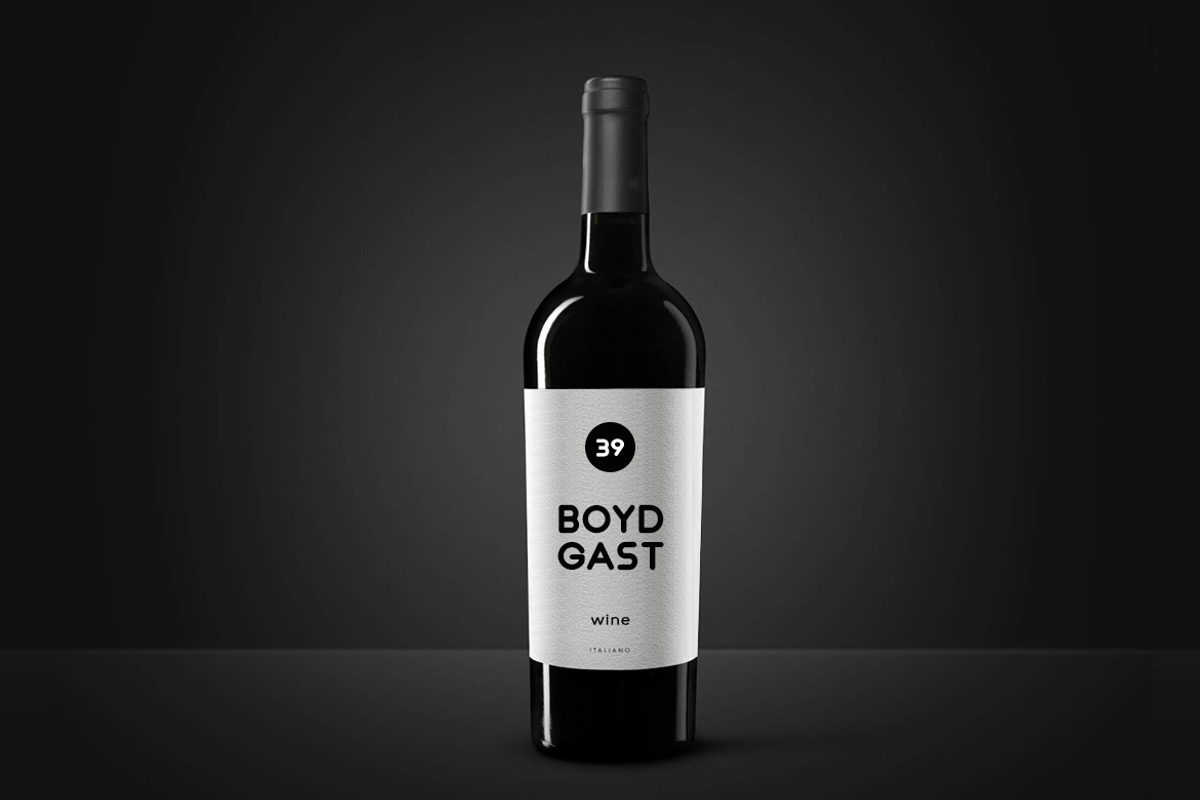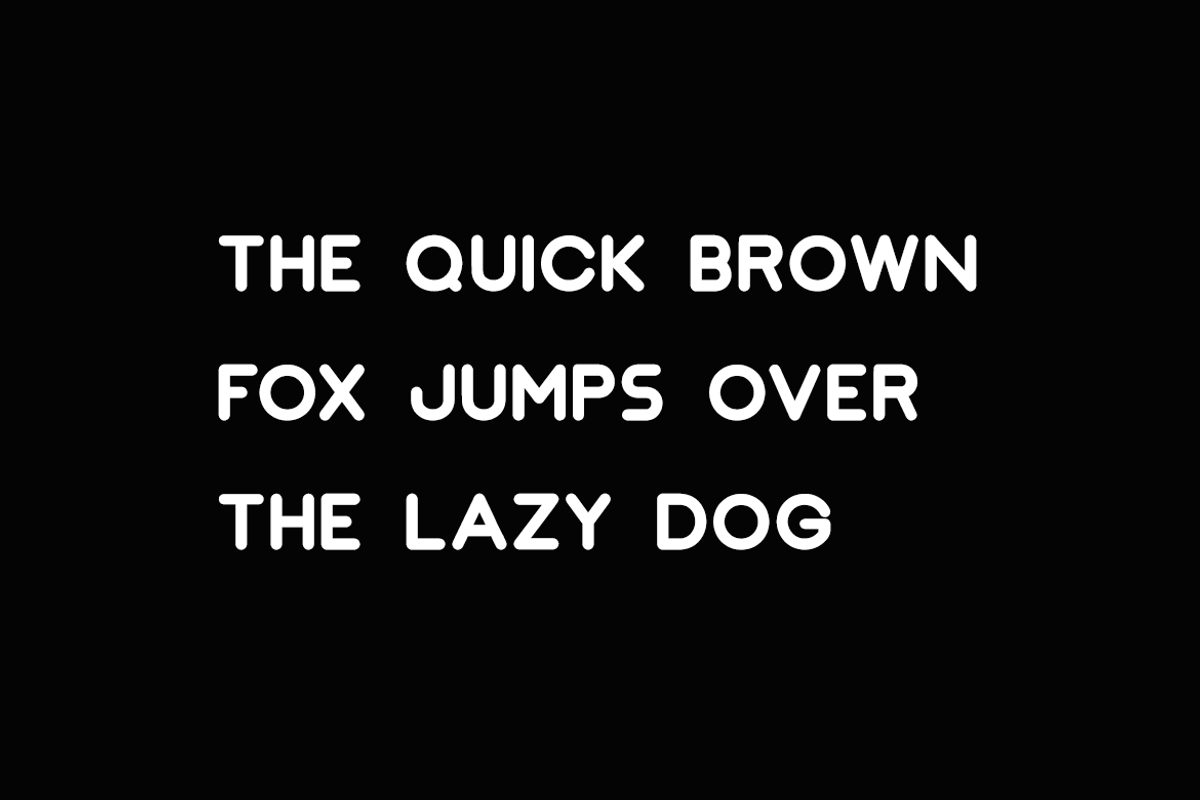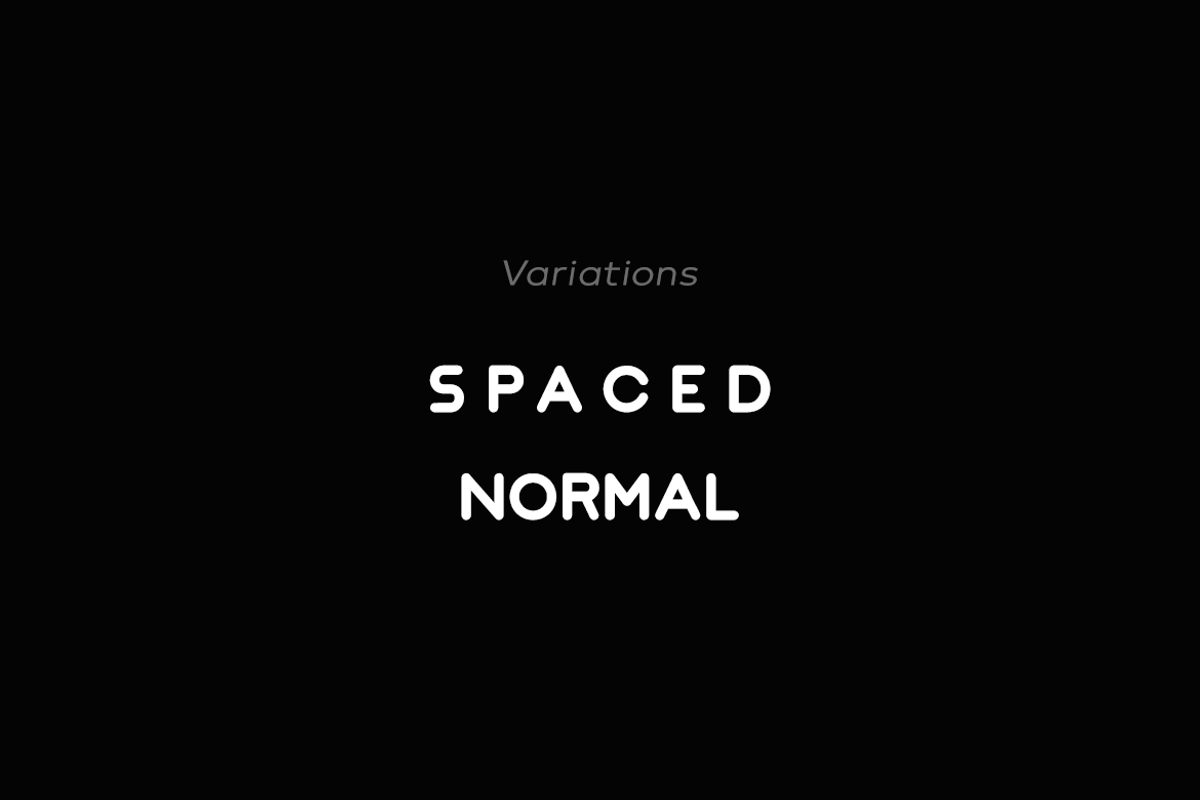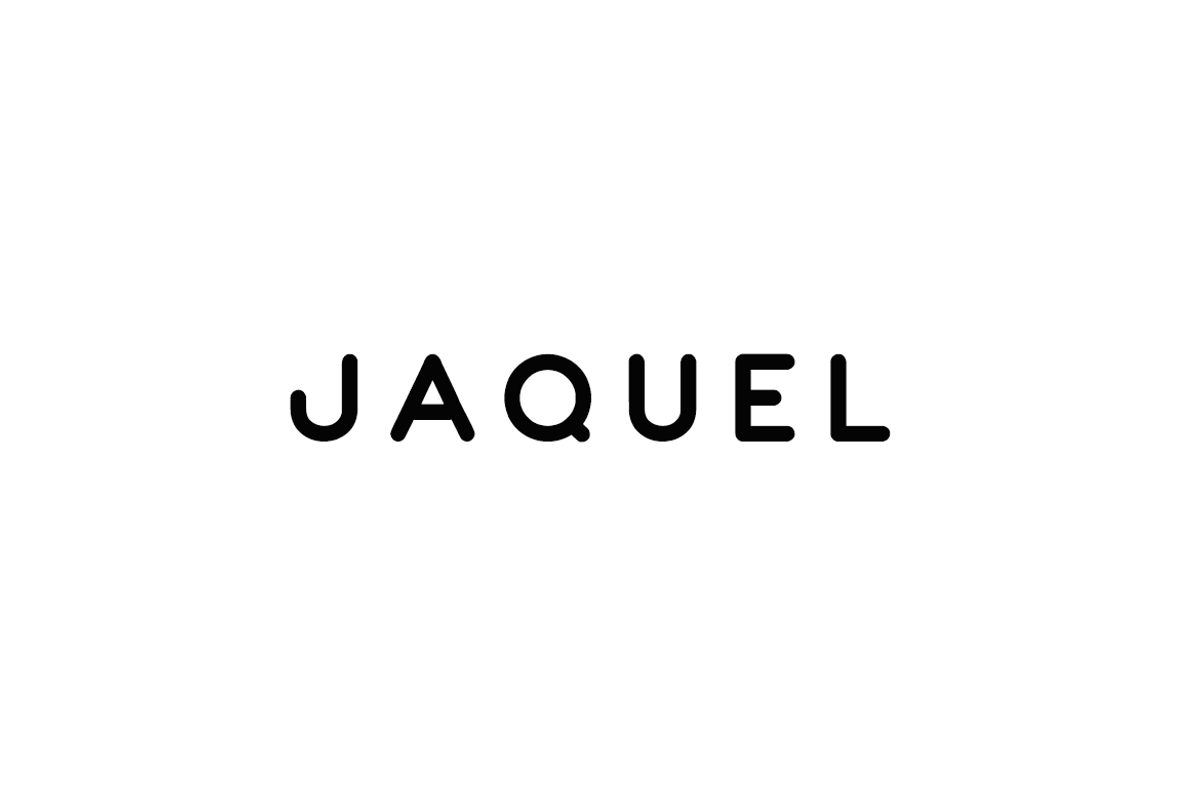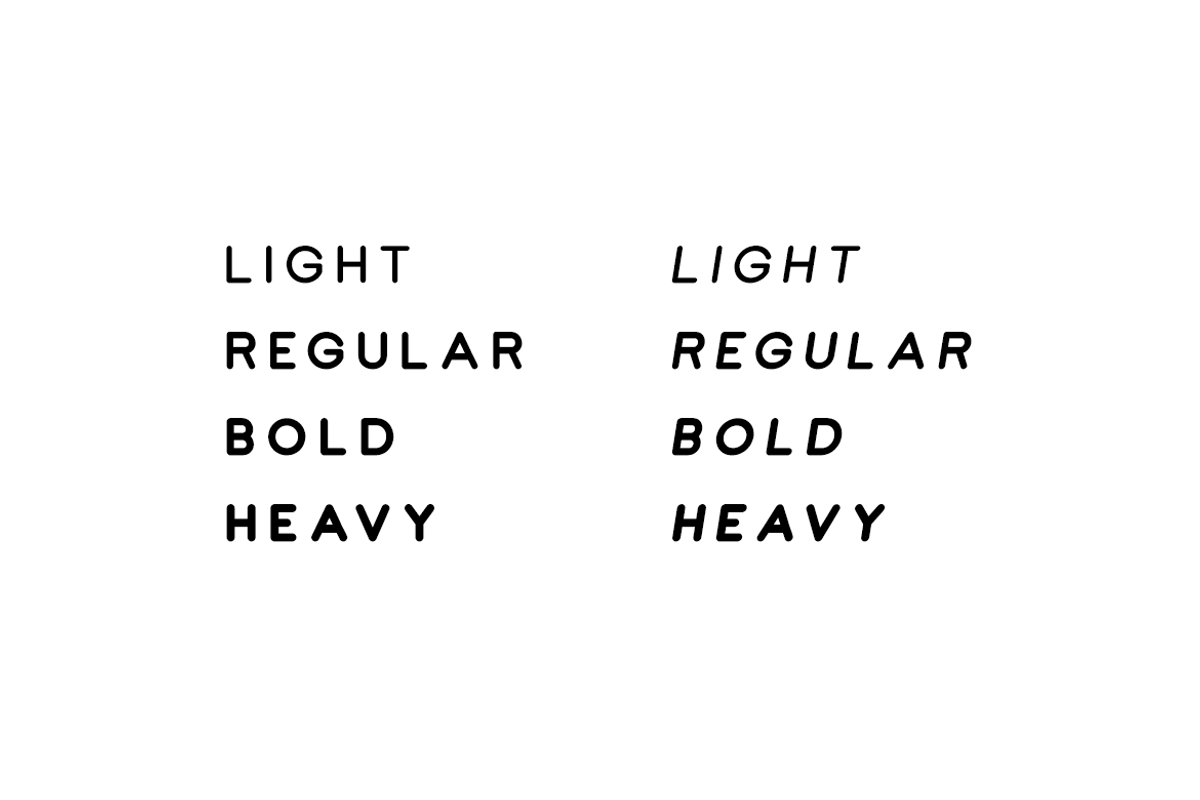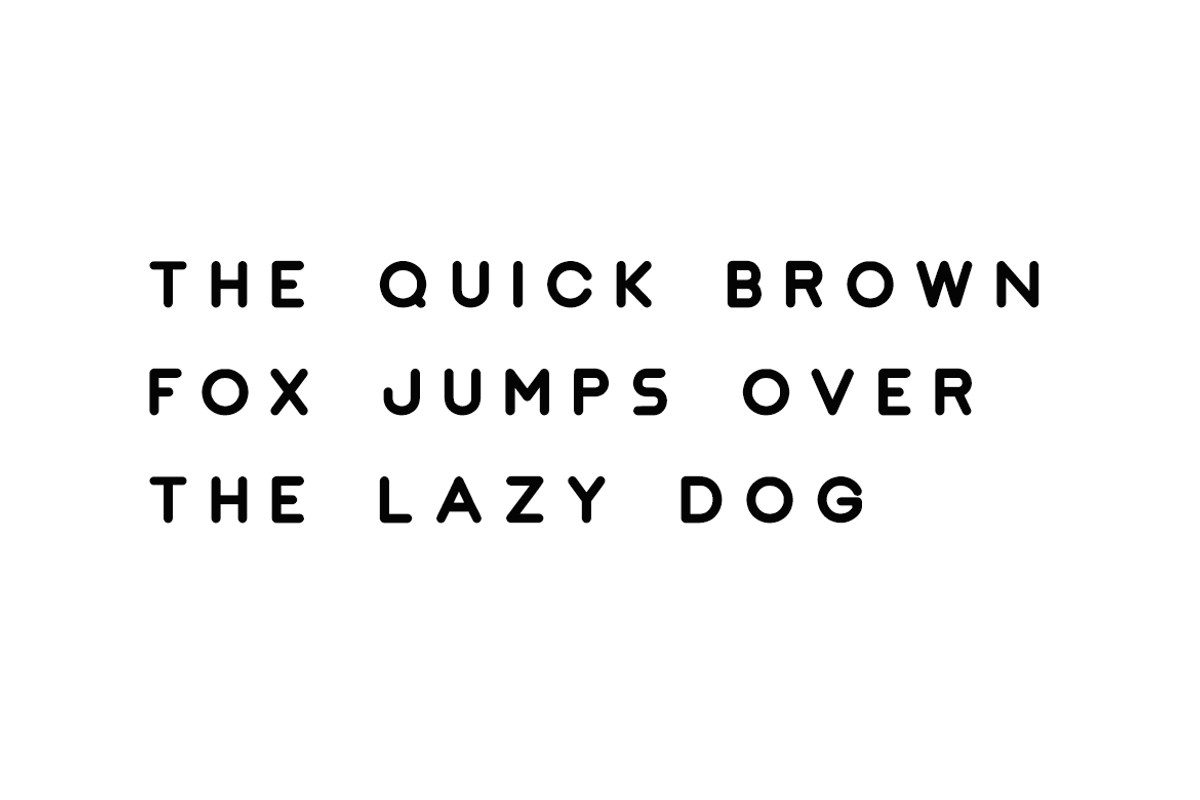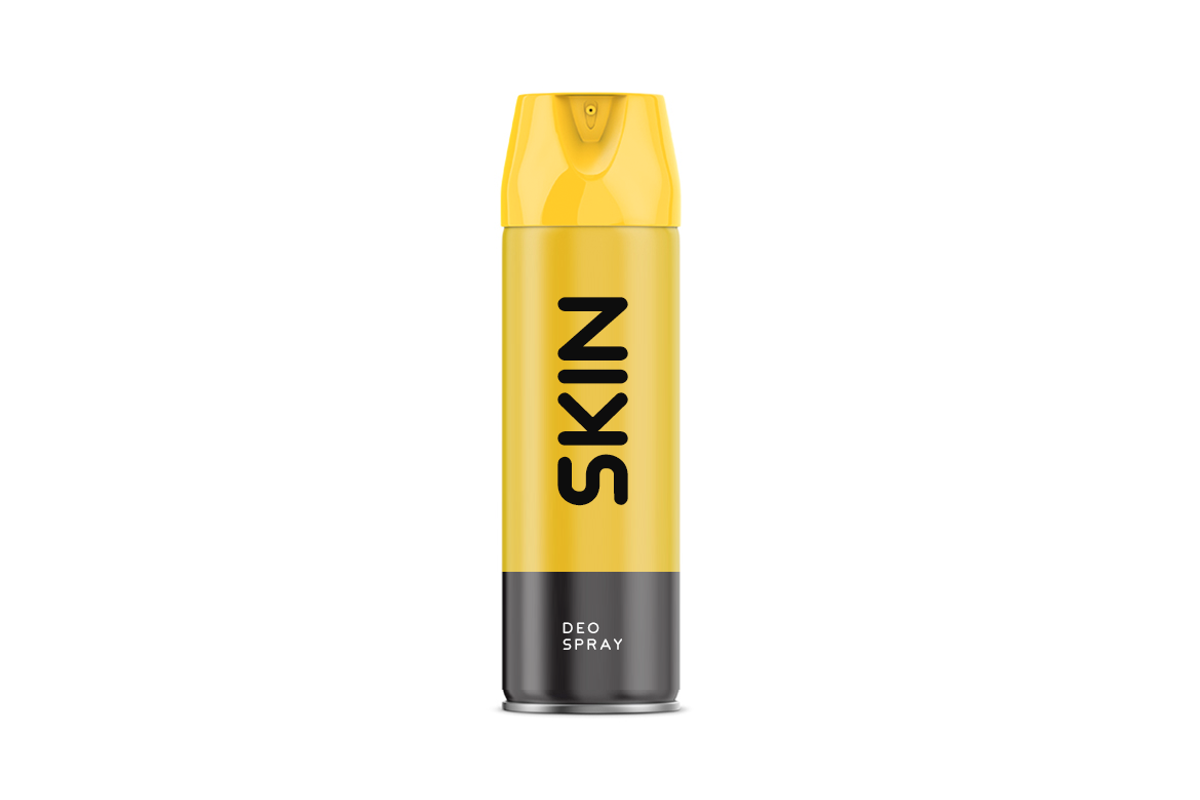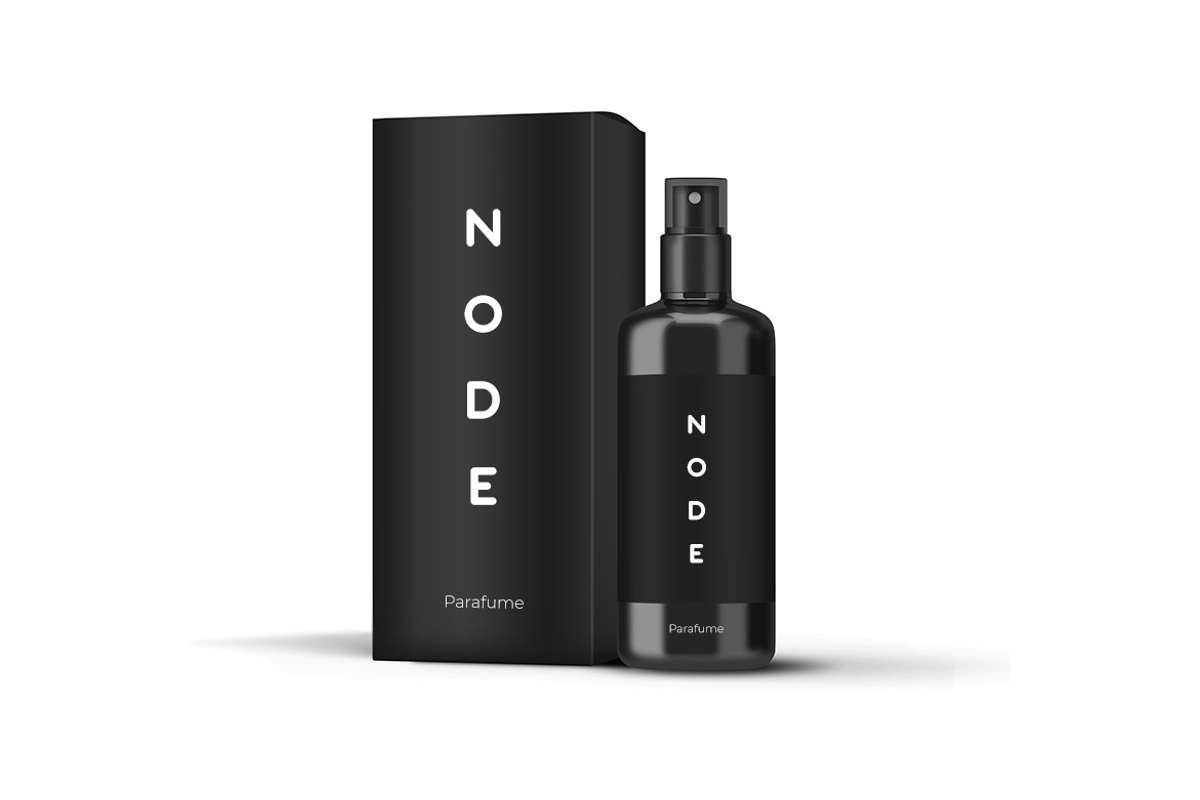
JAQUEL - Minimal Display Typeface
What's more loving than a clean typeface with an endless charm of it's own uniqueness? Meet JAQUEL - a stunning sans-serif typeface dedicated to minimal designs with a modern flair and charisma. Inspired by some classic geometric typefaces but with special finesse on overall balance, this all-caps typeface is particularly dedicated for display / headline / branding / logotype usage.
JAQUEL will be best suited for creating nicely looking headlines (add some letter spacing and it will amaze you) that you always find in today's fashion web stores, luxury branding & logtypes, premium marketing graphics and minimal portfolio websites. Just see the demo images given above for an abstract idea about the capability of this typeface.
JAQUEL typeface comes with 8 fonts spanning across 4 weights: LIGHT / REGULAR / BOLD / HEAVY and the italic versions of all weights. The pack includes Desktop Fonts (OTF & TTF) and Web Fonts (all EOT, SVG, TTF, WOFF, WOFF2 included) as licensing options.